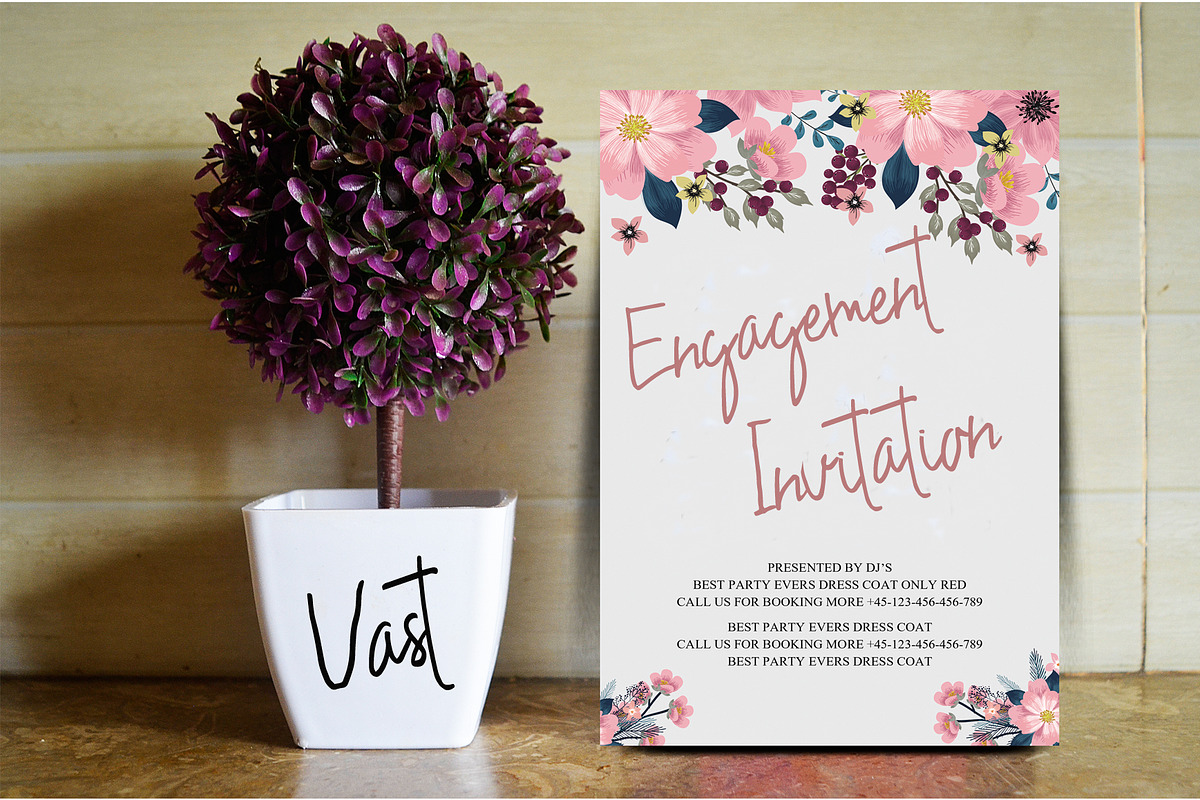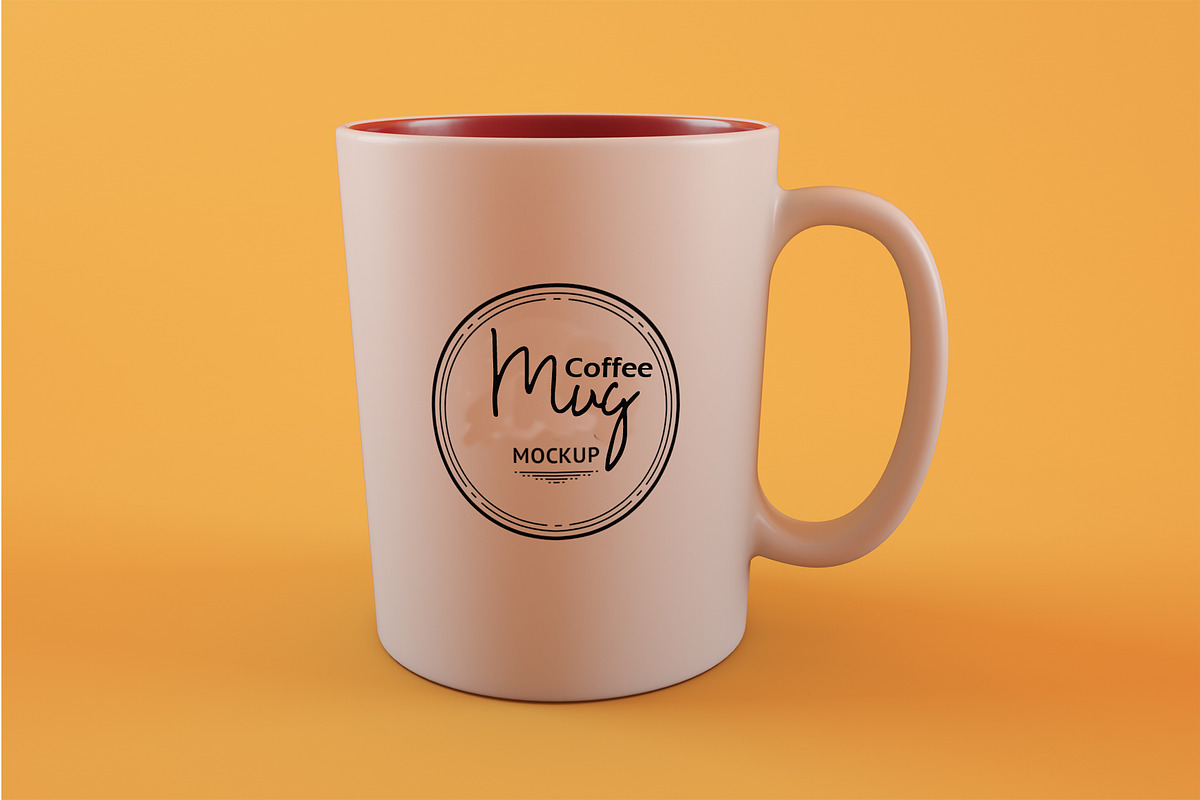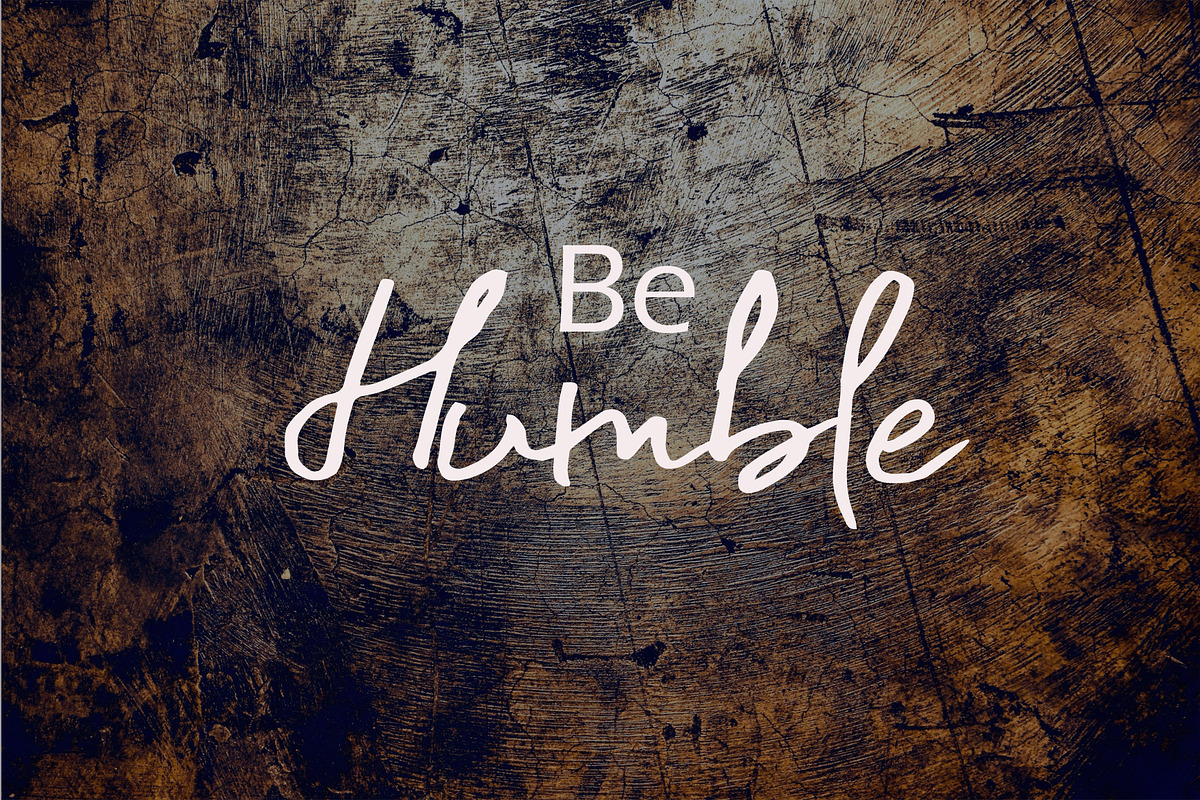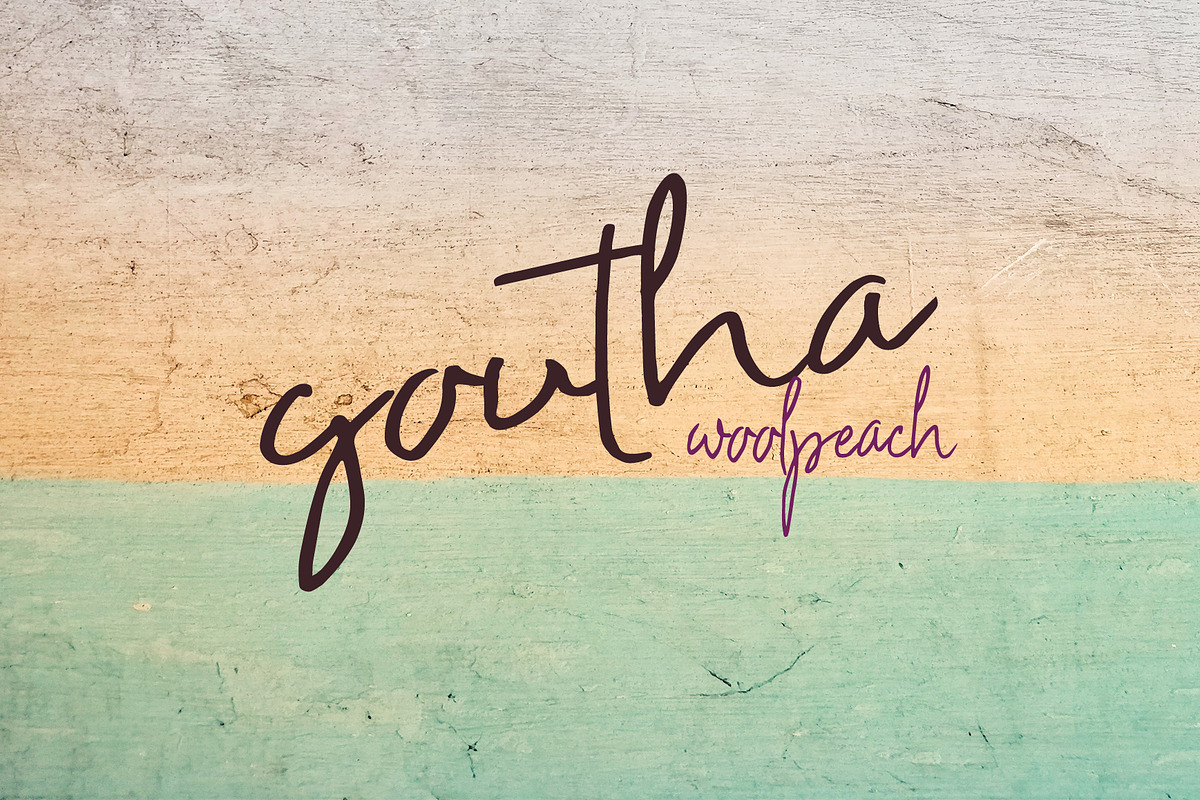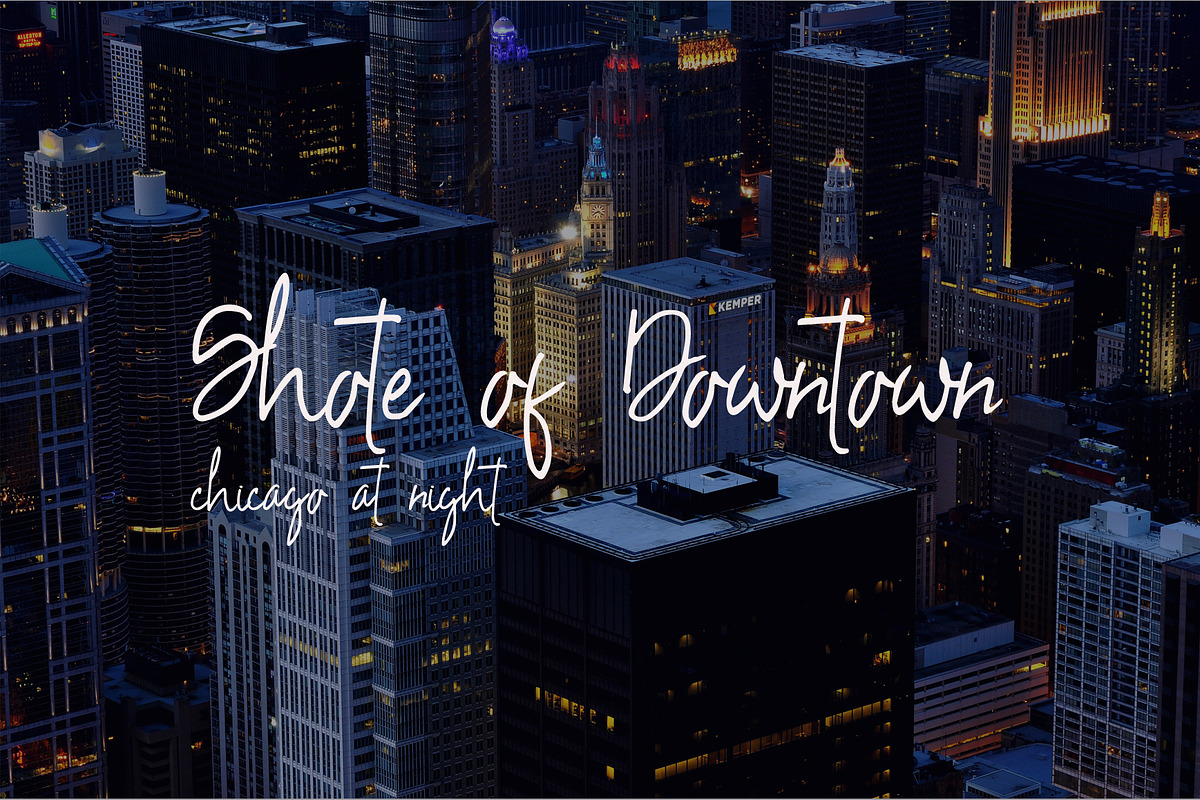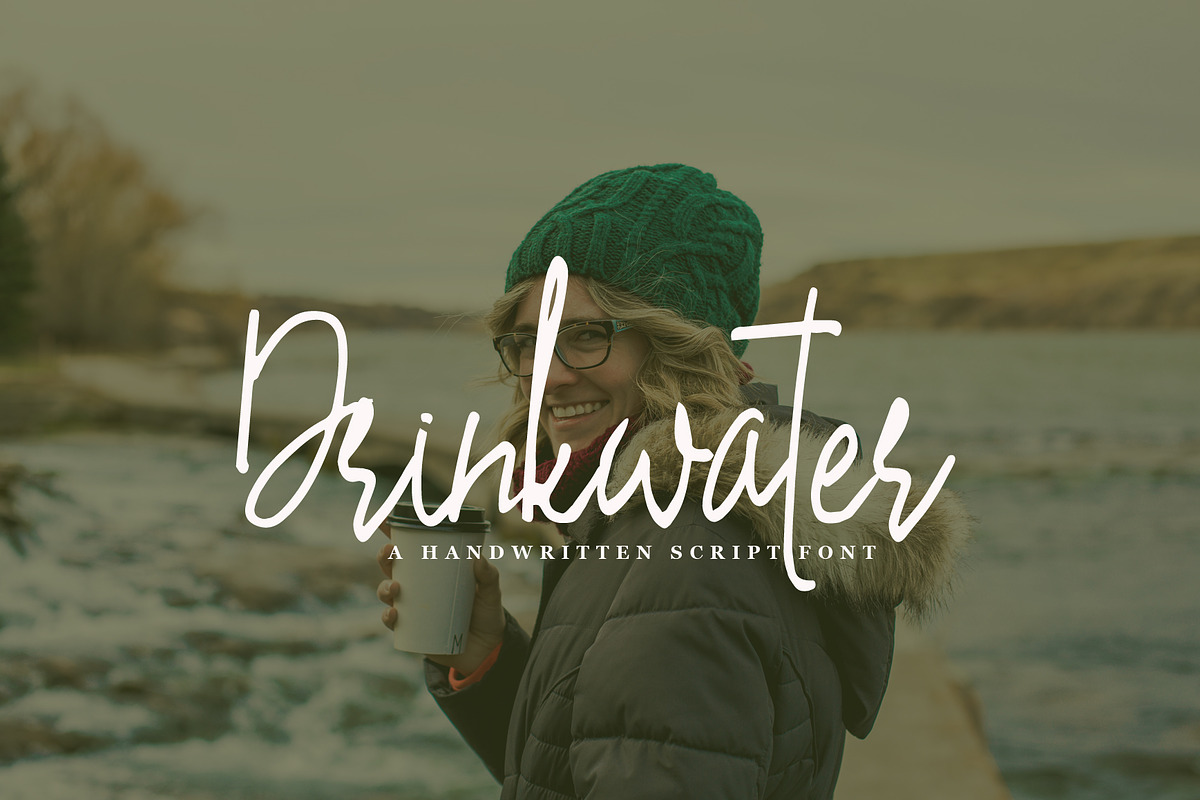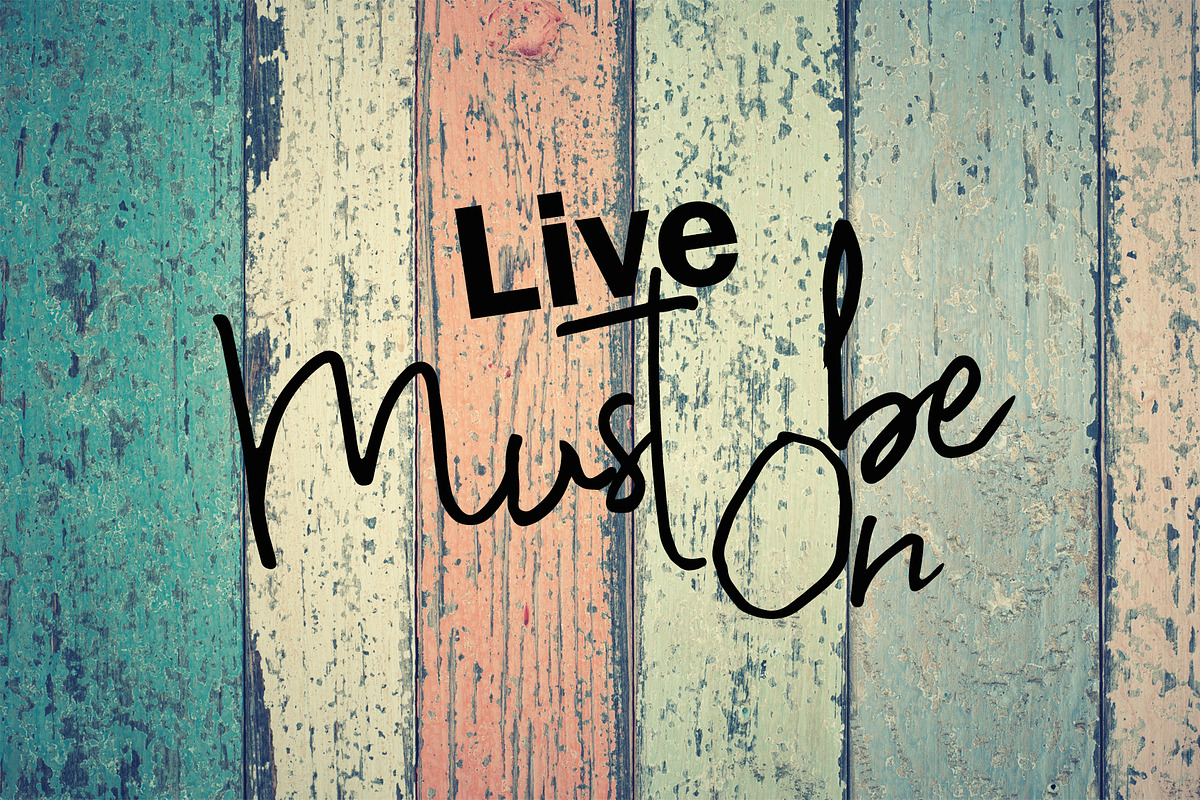
Drinkwater
Drinkwater is a beautiful and modern handwriting script Typeface. this font Suitable for any project products, such as wedding invitations, greeting cards, design of water-based paints, correspondence, and a variety of other purposes and more. this font multiple international language support.
Features : Basic Latin A -Z and a – z Number International Symbol International glyphs